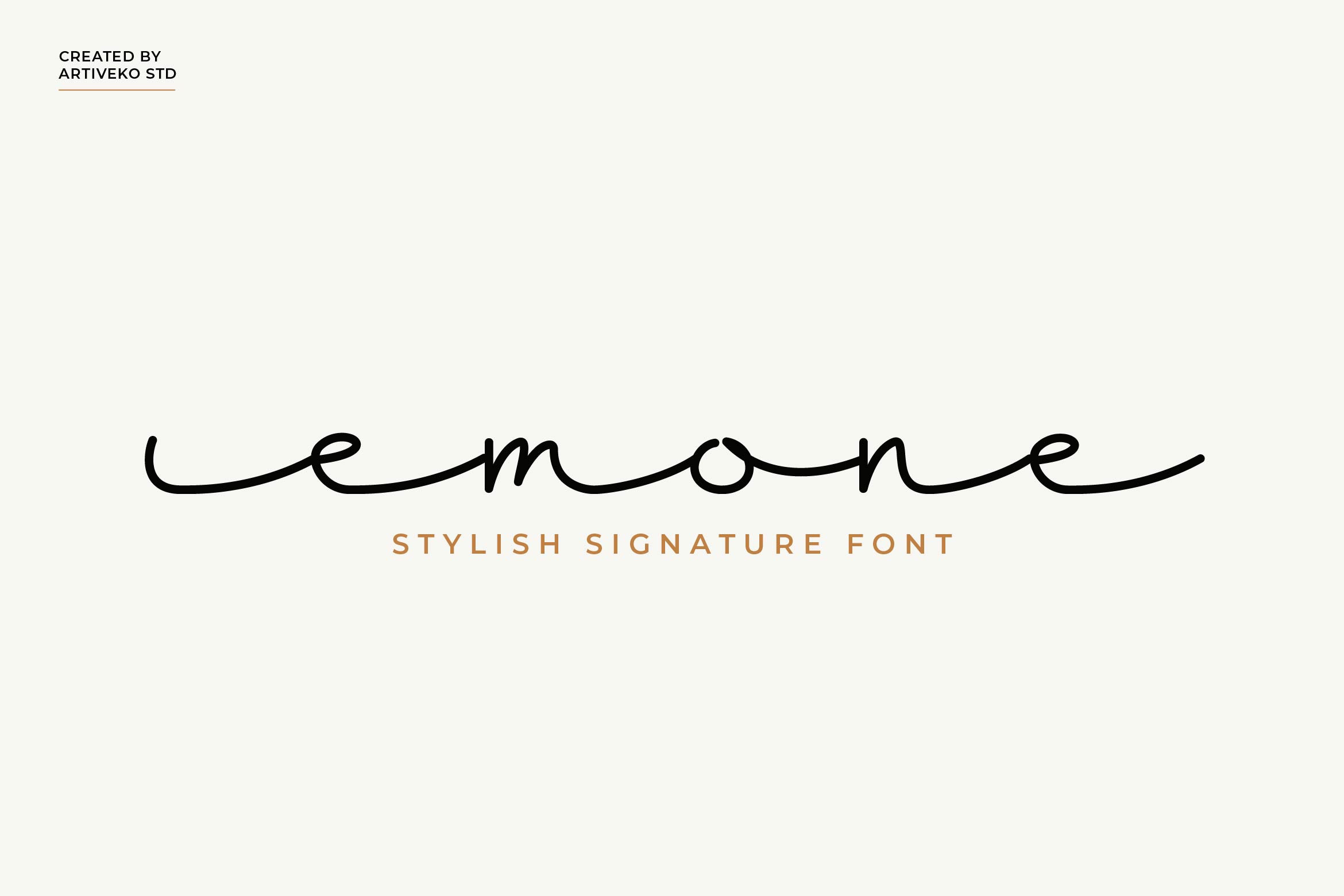
- Emone Luxury Scipt Font
Emone is an elegant handwritten script font designed to bring the beauty of natural handwriting into modern design. With its flowing strokes, smooth curves, and refined signature style, Emone is perfect for personal branding, logo design, wedding invitations, social media graphics, and product packaging that need a personal yet professional touch.
Its sophisticated rhythm gives the impression of authentic handwriting while maintaining excellent readability. Emone works beautifully for signature logos, feminine branding, lifestyle content, and high-end editorial layouts — adding warmth, creativity, and exclusivity to any project.
The font includes uppercase and lowercase letters, numerals, punctuation, multilingual support, ligatures, and stylistic alternates for expressive typography.
Elevate your projects with Emone — the signature script font that captures elegance, personality, and timeless charm in every stroke.